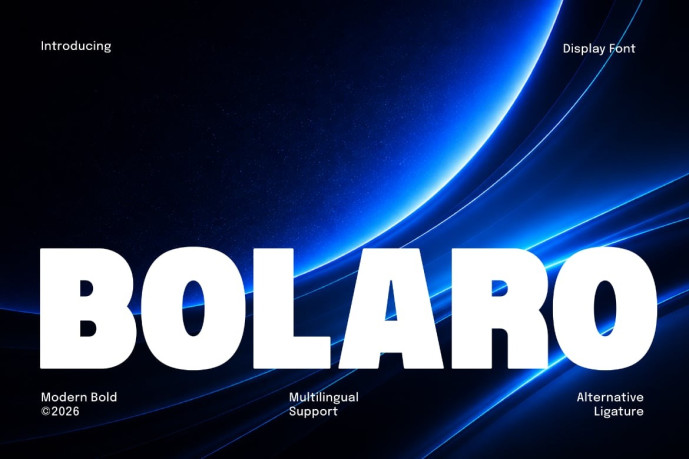
Bolaro Font
Designer: Saeful Maarif
Bolaro is a modern bold display sans serif designed to deliver maximum impact with clean, confident, and contemporary letterforms. Built with balanced proportions and smooth geometric curves, Bolaro offers exceptional readability while maintaining a strong visual presence.
Created for designers who value simplicity and bold expression, Bolaro is equally effective in branding, headlines, packaging, technology, advertising, and digital media. Its versatile design makes it suitable for everything from premium logos to large-scale marketing campaigns.
Featuring multilingual support and stylish alternative ligatures, Bolaro gives you the flexibility to create unique typographic compositions without sacrificing clarity. Whether you’re building a futuristic brand identity or a modern editorial layout, Bolaro provides the bold foundation your designs deserve.
Key Features
Modern bold display sans serif Clean geometric construction Strong and highly readable letterforms Alternative ligatures Multilingual language support Contemporary minimalist style High-impact display typography Perfect for branding and logos Professional commercial quality Optimized for print and digital use